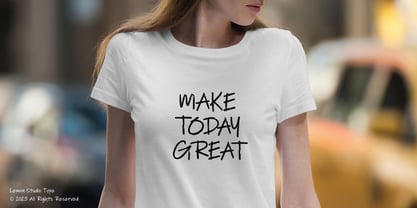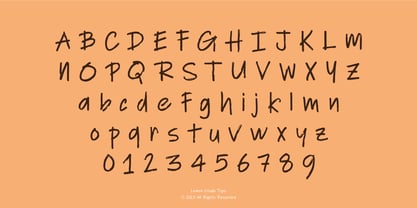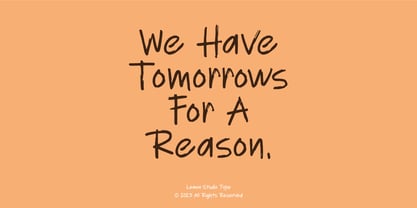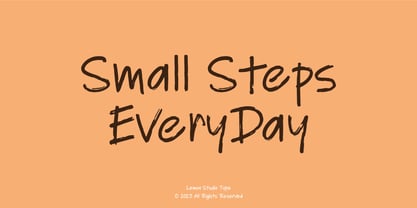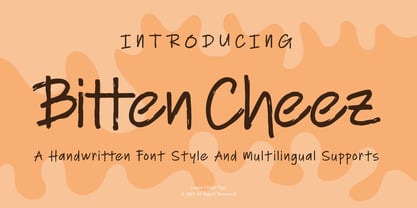
Bitten Cheez
by Lemon Studio Type
The Bitten Cheez Font Family was designed by Herpin Maulana and published by Lemon Studio Type. Bitten Cheez contains 1 styles.
Bitten Cheez is a vibrant handwritten font that infuses energy and character into your designs. With bold strokes and an authentic hand-drawn feel, it embodies spontaneity, making it perfect for projects that seek a memorable, contemporary touch. Each letter flows with casual charm, creating a friendly atmosphere. Ideal for logos, packaging, posters, and social media visuals, this font adds creativity and attitude. Its unique irregular curves and lively rhythm give your text a dynamic quality, making it feel alive and full of personality. Whether for food brands, lifestyle products, or engaging digital content, Bitten Cheez offers a delightful blend of playfulness and style.
Designers: Herpin Maulana
Publisher: Lemon Studio Type
Foundry: Lemon Studio Type